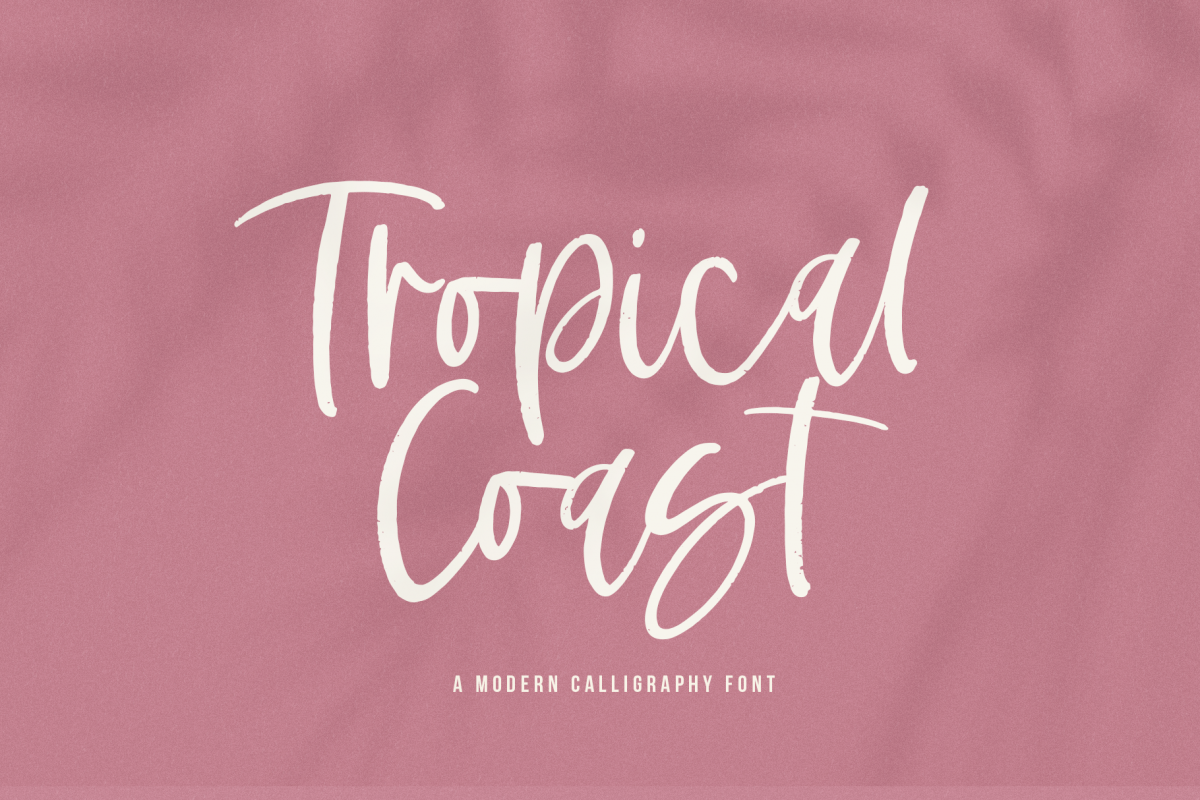
Tropical Coast - A Handwritten Script Font
Tropical Coast is a modern handwritten font with a fun brush texture.
This font has a slight noisy texture - making it perfect for branding and digital designs.
Most accent characters included.